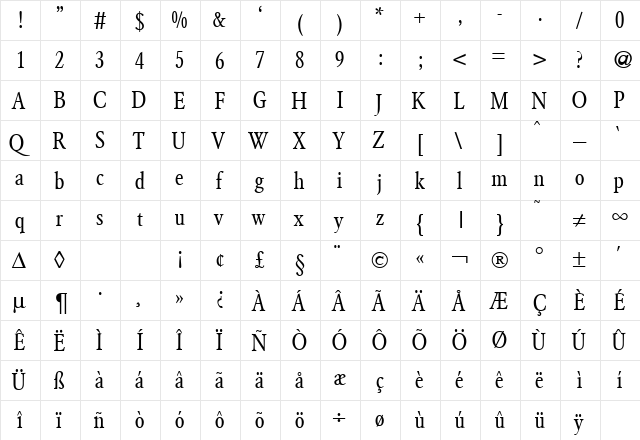
ClassicGaramondCond Regular
Design Context for ClassicGaramondCond Typeface
ClassicGaramondCond has the warm character of retro typography — evoking diners, record sleeves, and the golden age of print advertising.
Perfect for vintage-inspired branding, retro packaging, nostalgia campaigns, and period-accurate editorial design.
Font Pairing: Combine ClassicGaramondCond with a simple slab or neutral sans — period-accurate companions reinforce the vintage feel without competing for attention.
Pro Tip: Use ClassicGaramondCond for headlines and pull quotes rather than body copy — its personality is best appreciated in short, focused bursts.